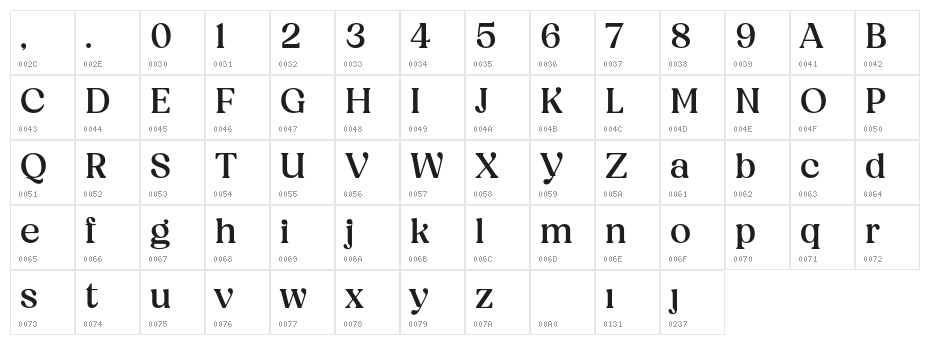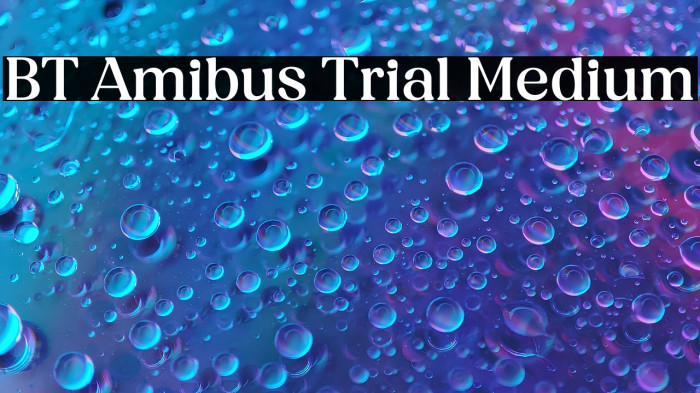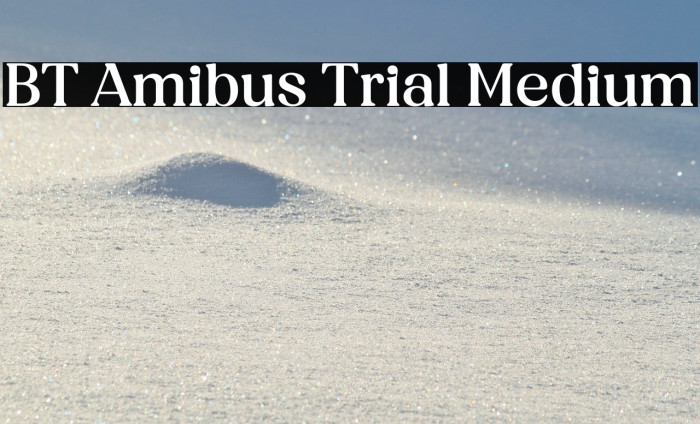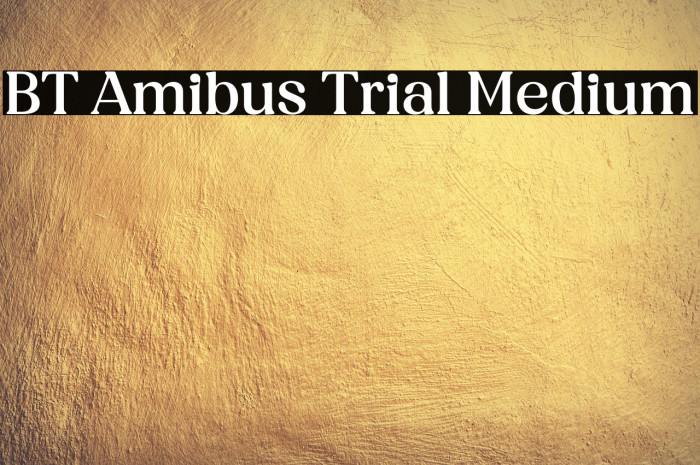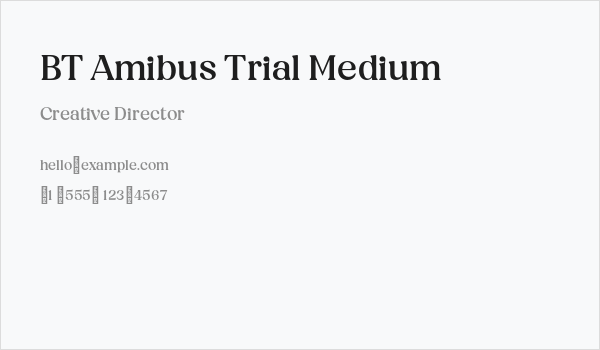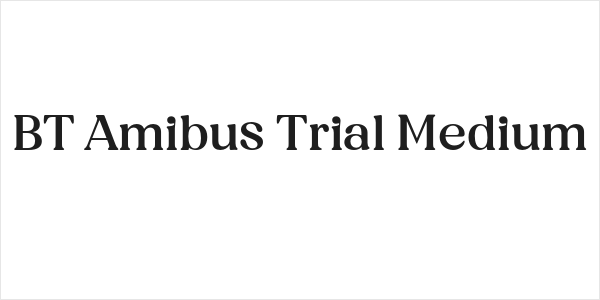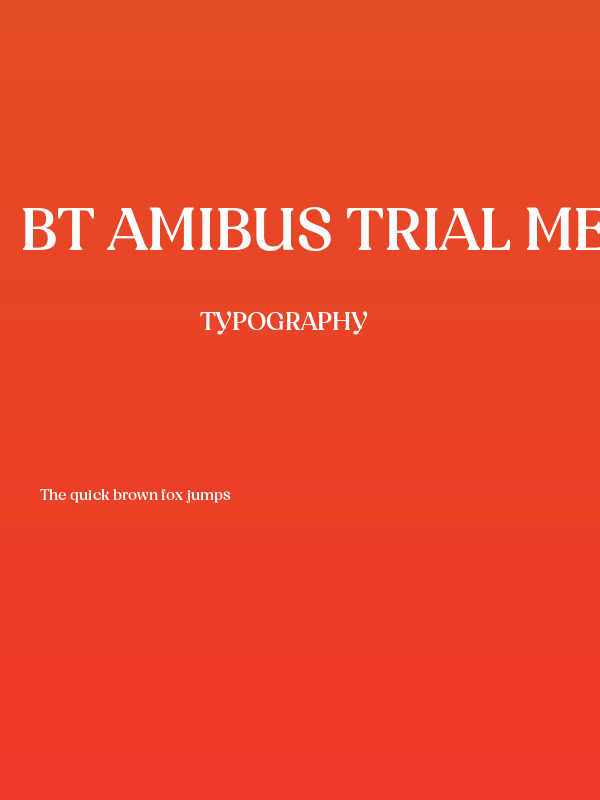
BT Amibus Trial Medium Font
BT Amibus Trial Medium Description
This font features a classic serif style with a medium weight, offering a balanced and readable appearance. The characters are well-defined with slight variations in stroke width, providing a moderate contrast that enhances legibility. The uppercase letters are bold and commanding, while the lowercase letters maintain a consistent and harmonious flow. The numerals are clear and distinct, making them suitable for both text and numerical data. The overall design is elegant yet functional, making it versatile for various applications.
| Use Case | Headlines, Body text, Editorial design |
| Proposed Projects | Ideal for editorial design, book covers, formal invitations, and corporate branding. |